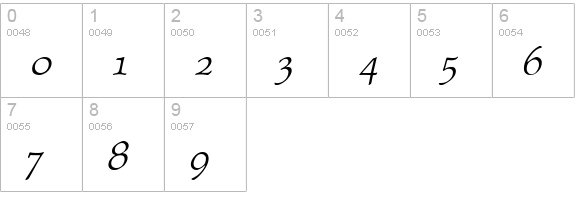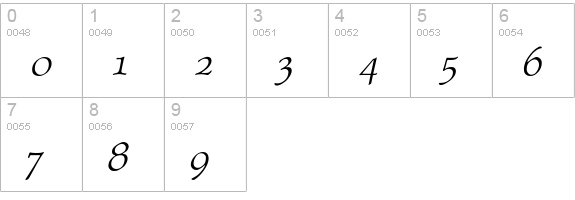
AlbionItalic Font Details
AlbionItalic is a stunning and elegant font that exudes sophistication and charm. Its graceful italic style adds a touch of class to any design project, making it perfect for invitations, branding, and editorial content. The flowing curves and subtle strokes of AlbionItalic create a sense of fluidity and movement, making it a versatile choice for both digital and print media. What makes AlbionItalic even more appealing is that it is available for free download at FontsMarket.com. This means you can easily access this exquisite font and incorporate it into your creative endeavors without any cost. Don't miss out on the opportunity to enhance your projects with the timeless beauty of AlbionItalic - download it now and elevate your designs to new heights.